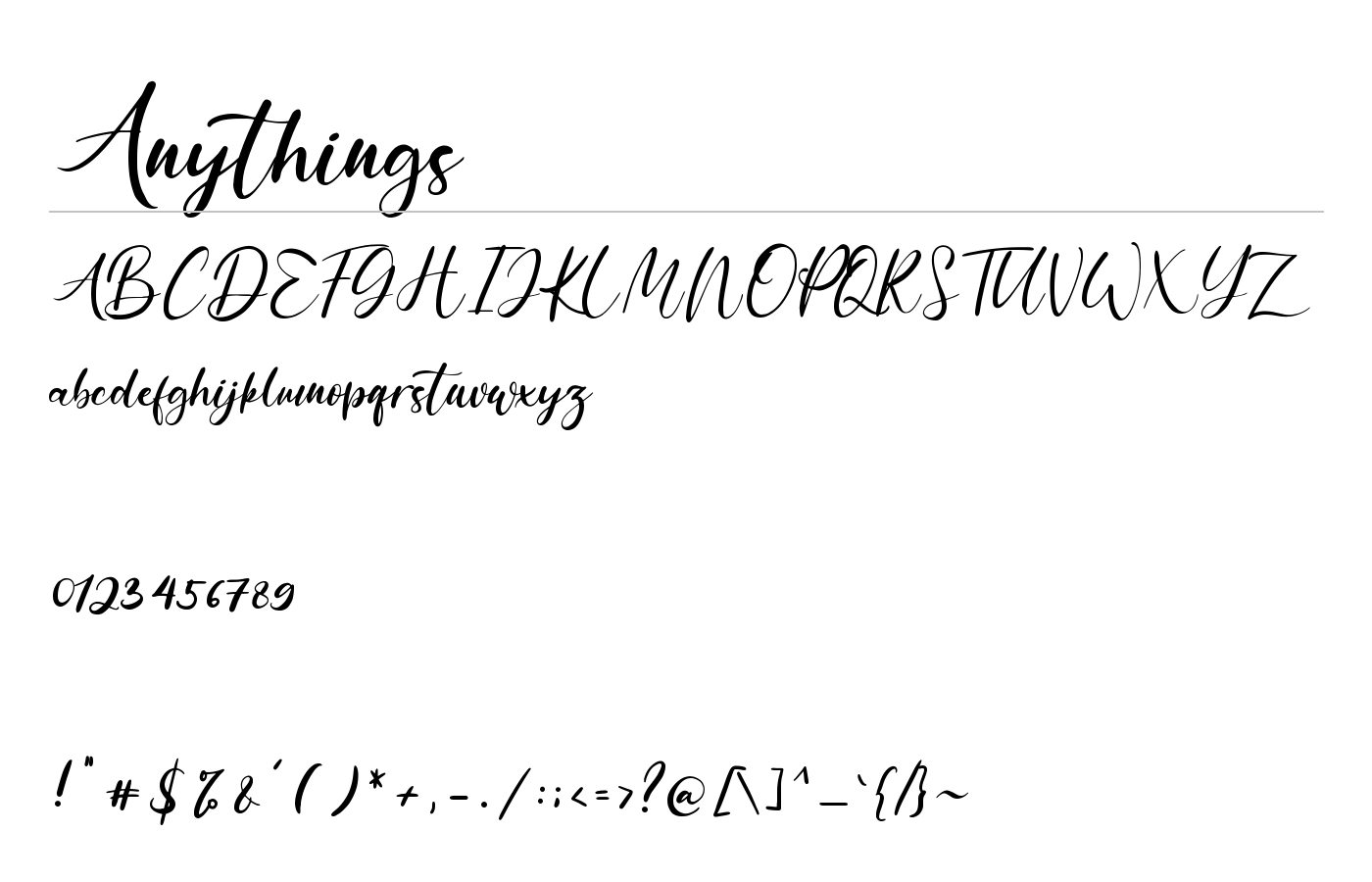
Anythings Font is a stylish script typeface with a flowing, handwritten feel, featuring elegant, slightly varied stroke weights and smooth curves. Its tall, slender letterforms and delicate flourishes make it perfect for conveying a personal, creative, or sophisticated vibe, ideal for invitations, branding, and artistic projects where a touch of graceful charm is desired.
Anythings Font
About Anythings Font